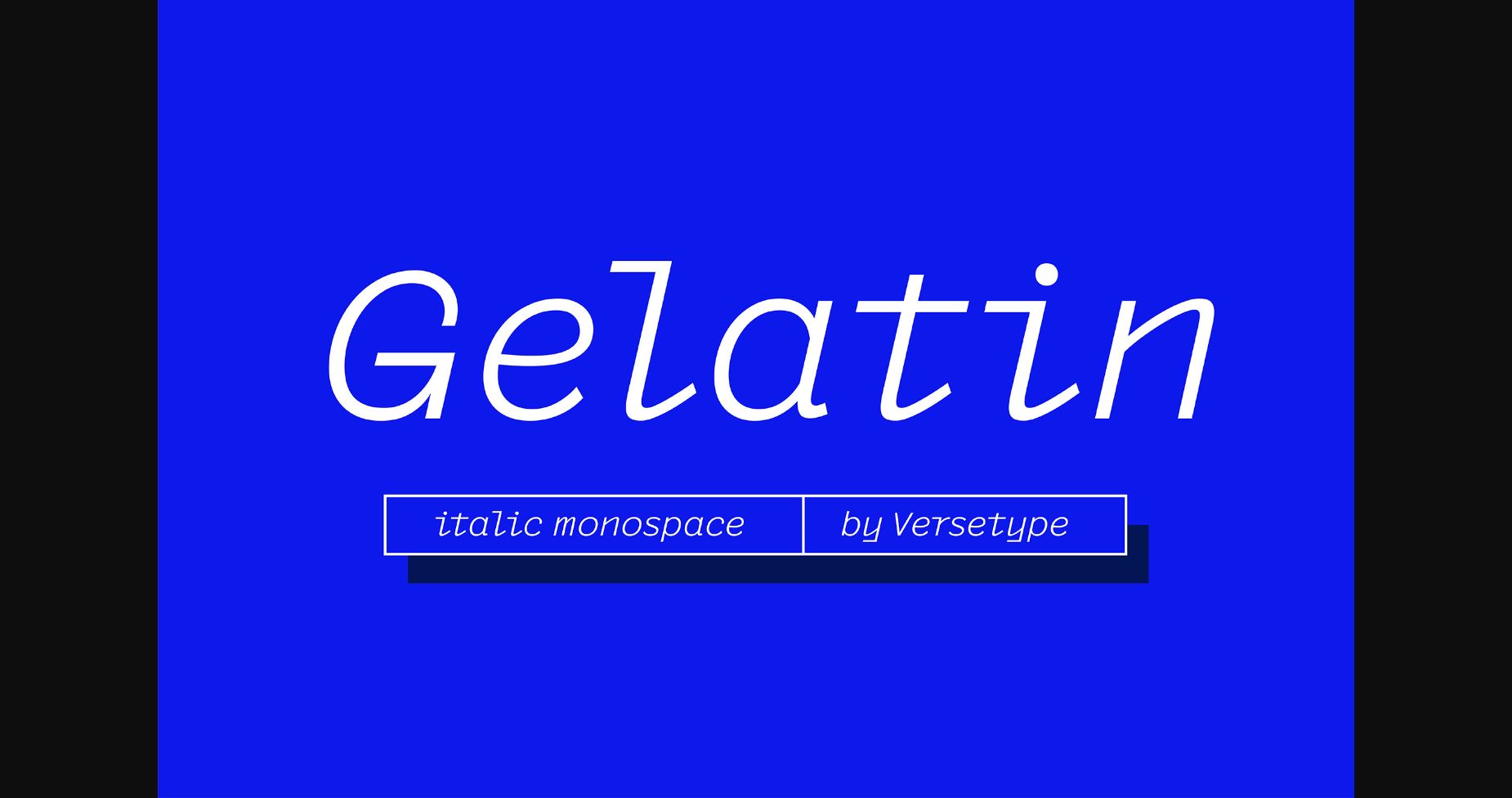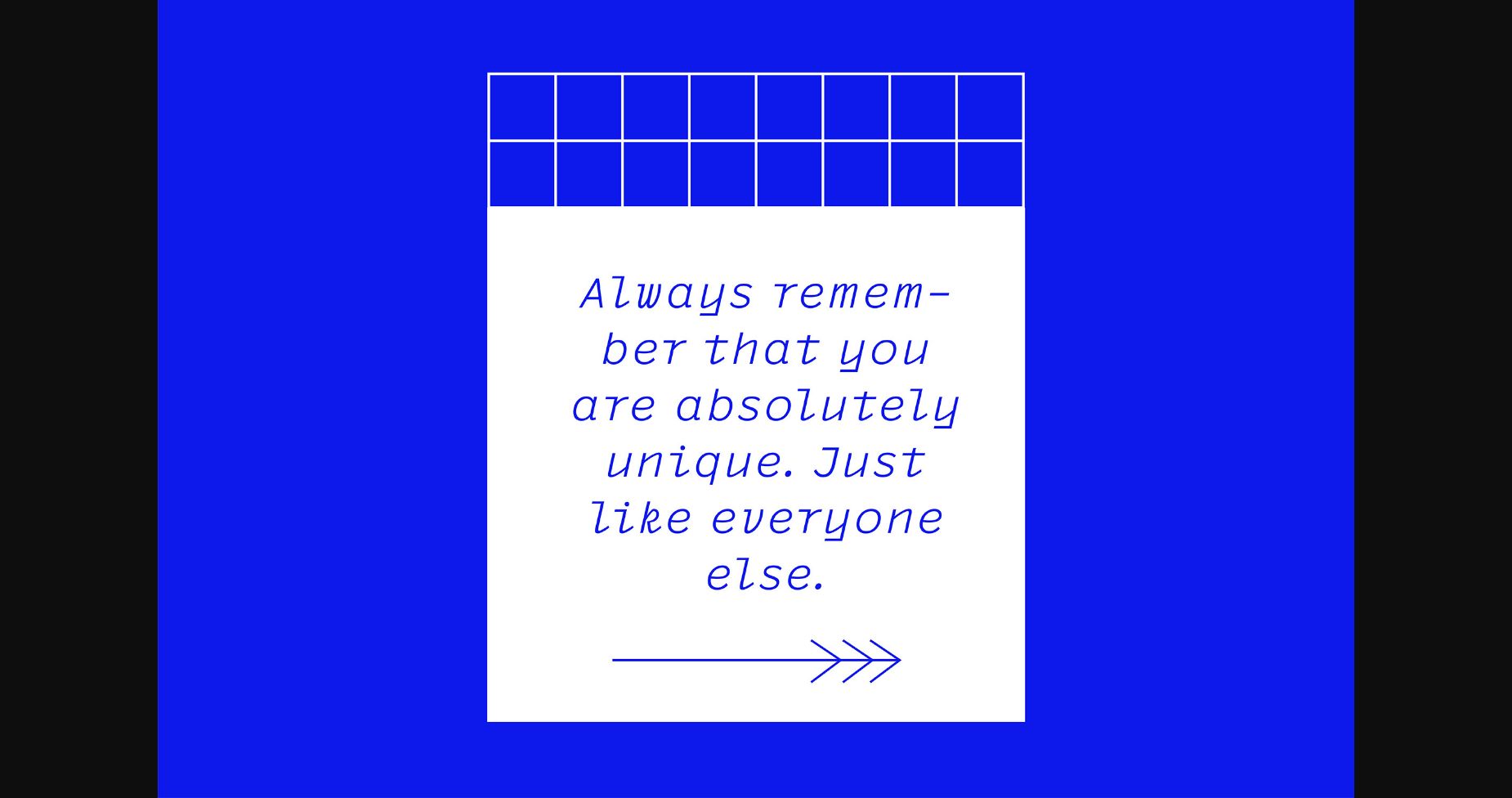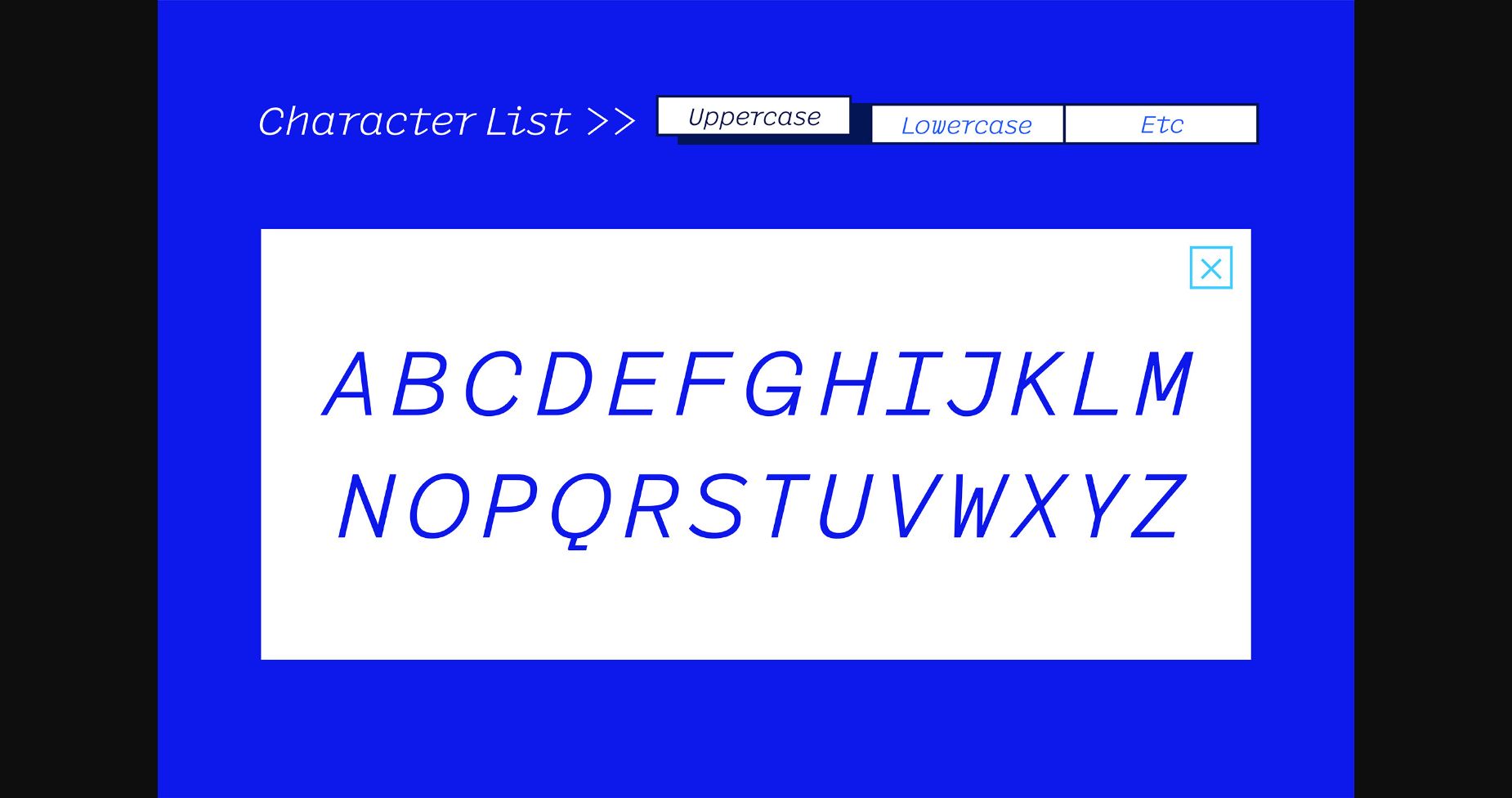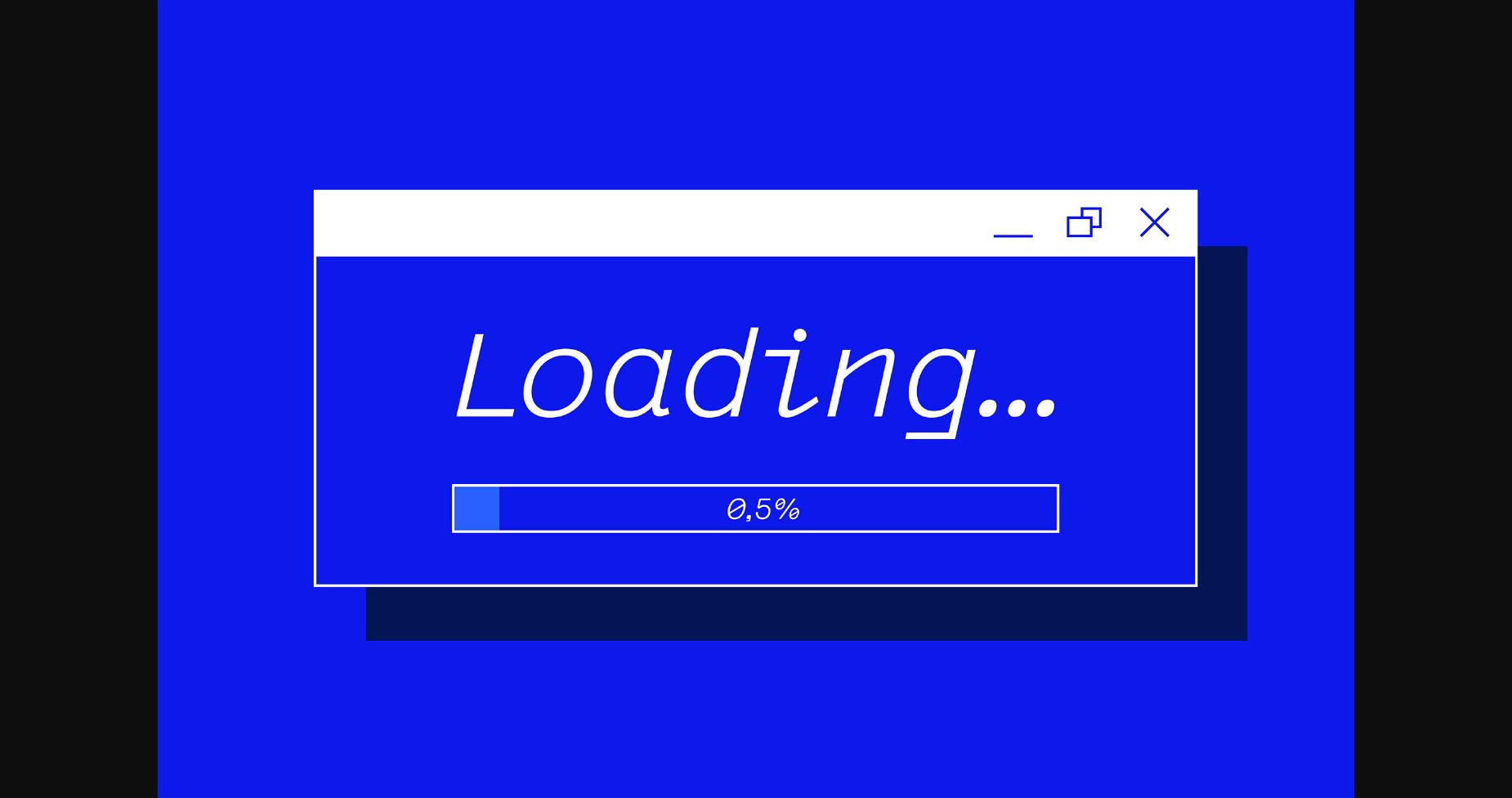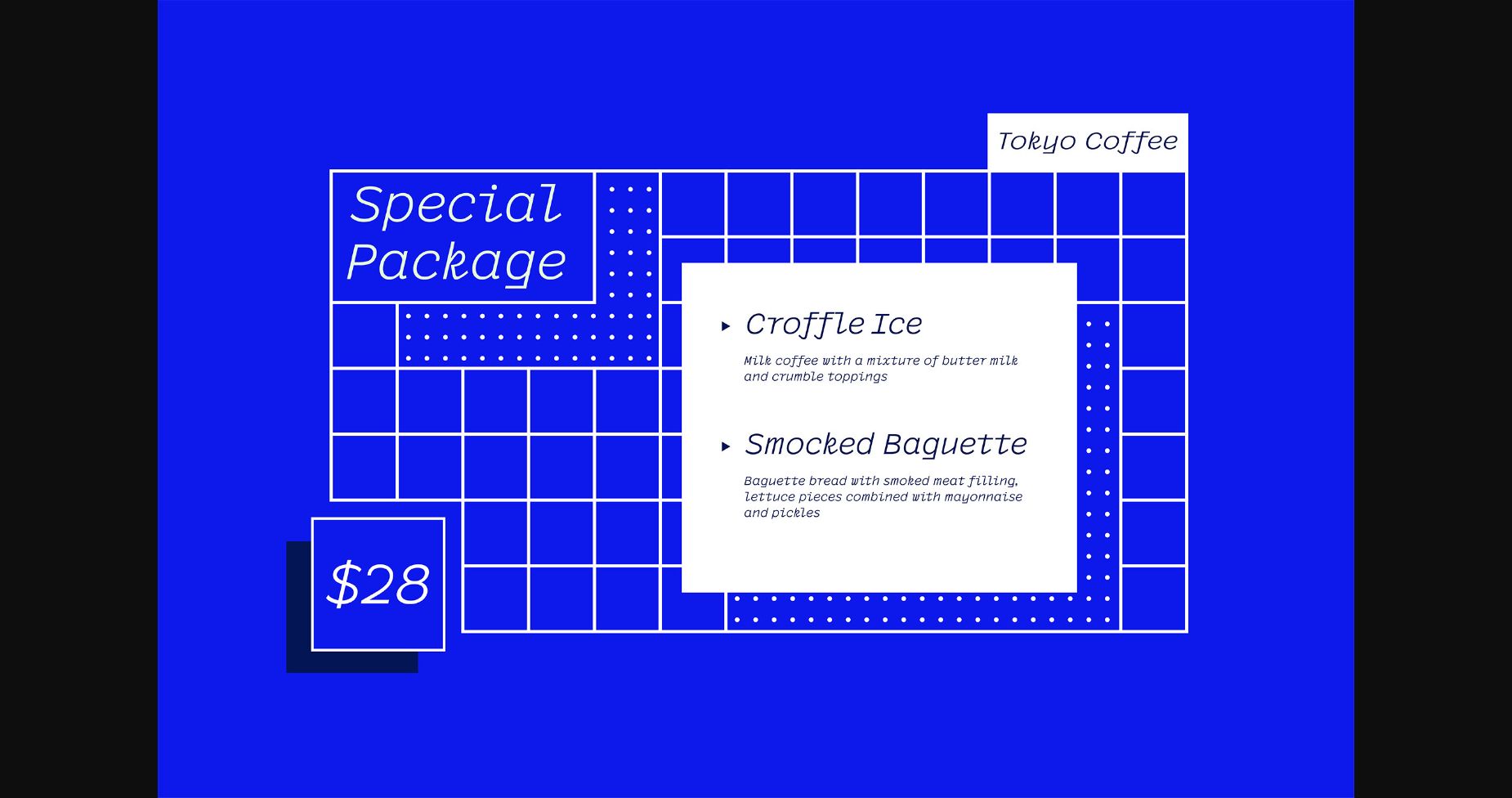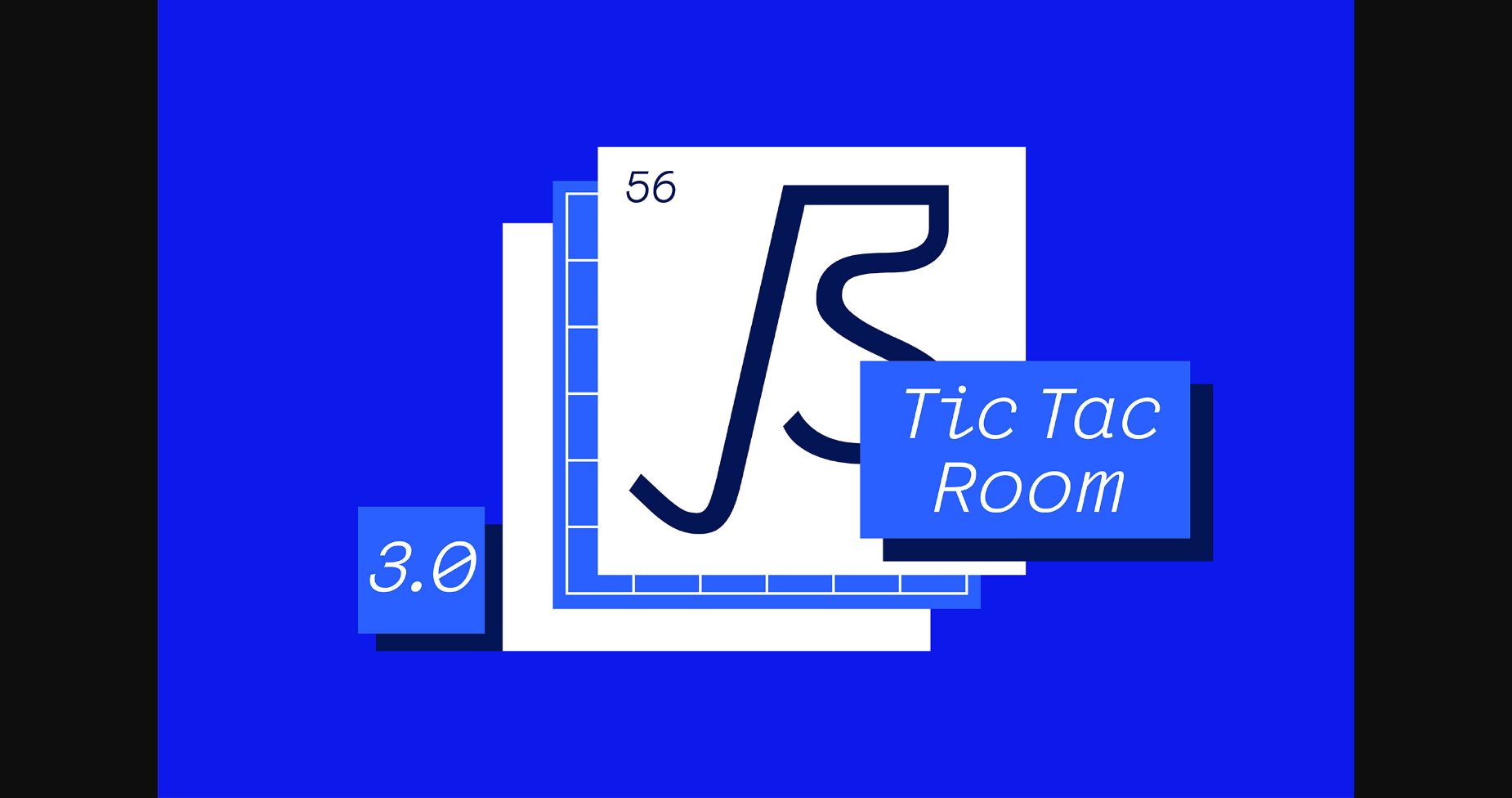
About Gelatin Font
Gelatin is an adaptable and clean sans serif font. It can easily be matched to an incredibly large set of projects, so add it to your creative ideas and notice how it makes them stand out!